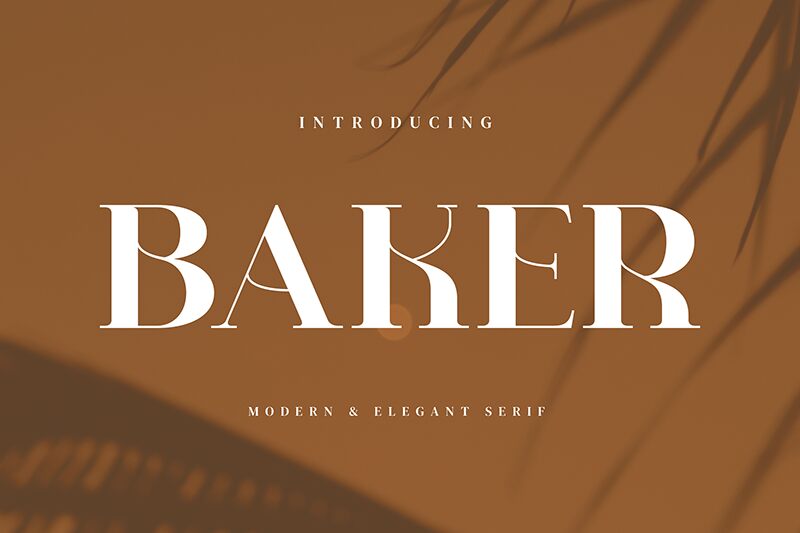
Baker
Baker font designed by Biham Santoso is a free serif font that exudes elegance and sophistication. With its classic style, high contrast, and impeccable readability, this typeface evokes a timeless appeal while offering modern-day functionality.
Used for magazine titles, newspaper text, social media posts or branding designs. Also efficient for physical copy such as books and brochures. Perfectly matches with design of banners as much as with websites or mobile UI interface designs.